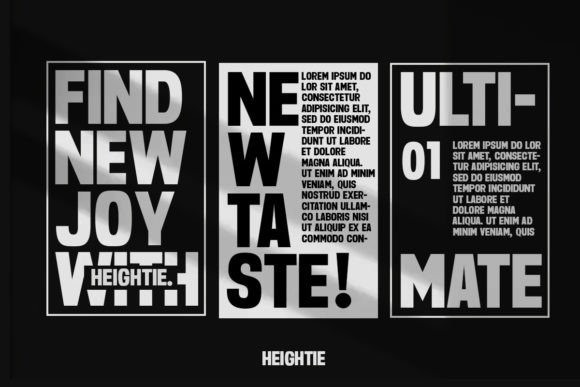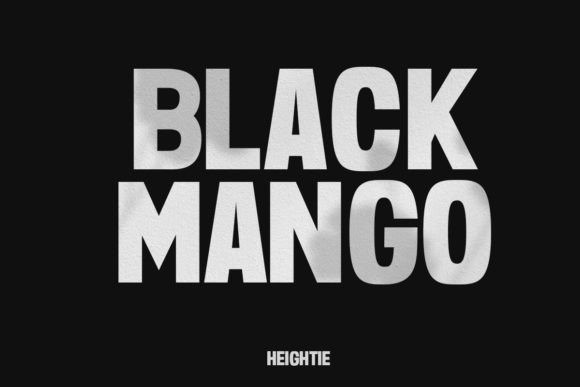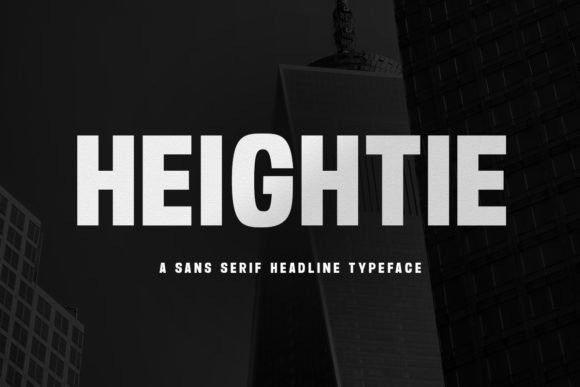
Heightie – Sans Serif Headline Typeface
Heightie is a beautiful, stylish sans serif display font that is perfect for headlines and other creative applications. Whatever the topic, this font will be a wonderful asset to your font library, as it has the potential to enhance any creation.